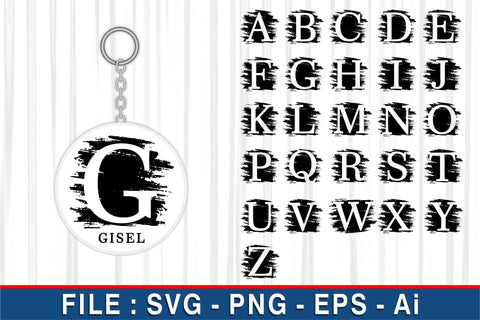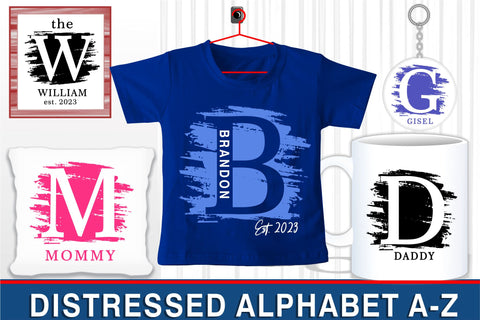
Distressed Alphabet SVG Set A-Z, Grunge Letters SVG, Abstract Font SVG, T shirt, Mug, Key chain, Pillow, & Decorative Design Bundle
Distressed Alphabet SVG Set A-Z, Grunge Letters SVG, Abstract Font SVG,
T shirt, Mug, Key chain, Pillow, & Decorative Design Bundle